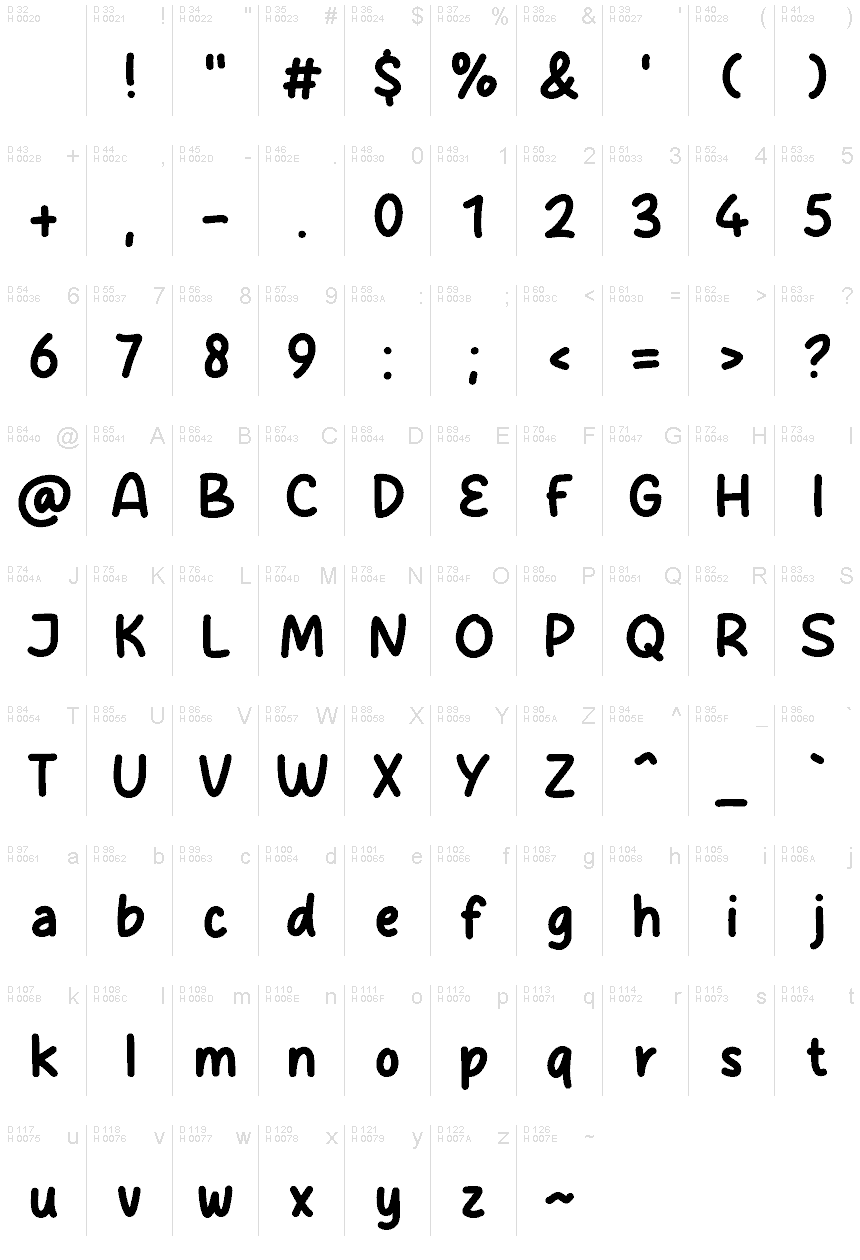
Mister Stars
Handwritten fonts never fail to add the perfect touch of style to any text. Their rustic, natural demeanor makes them the go-to choice for branding or packaging projects, but Mister Stars can go beyond labels and packaging.
With its friendly vibe and bold presence, it can be incorporated into comic books and book covers, as well as posters and advertising designs.